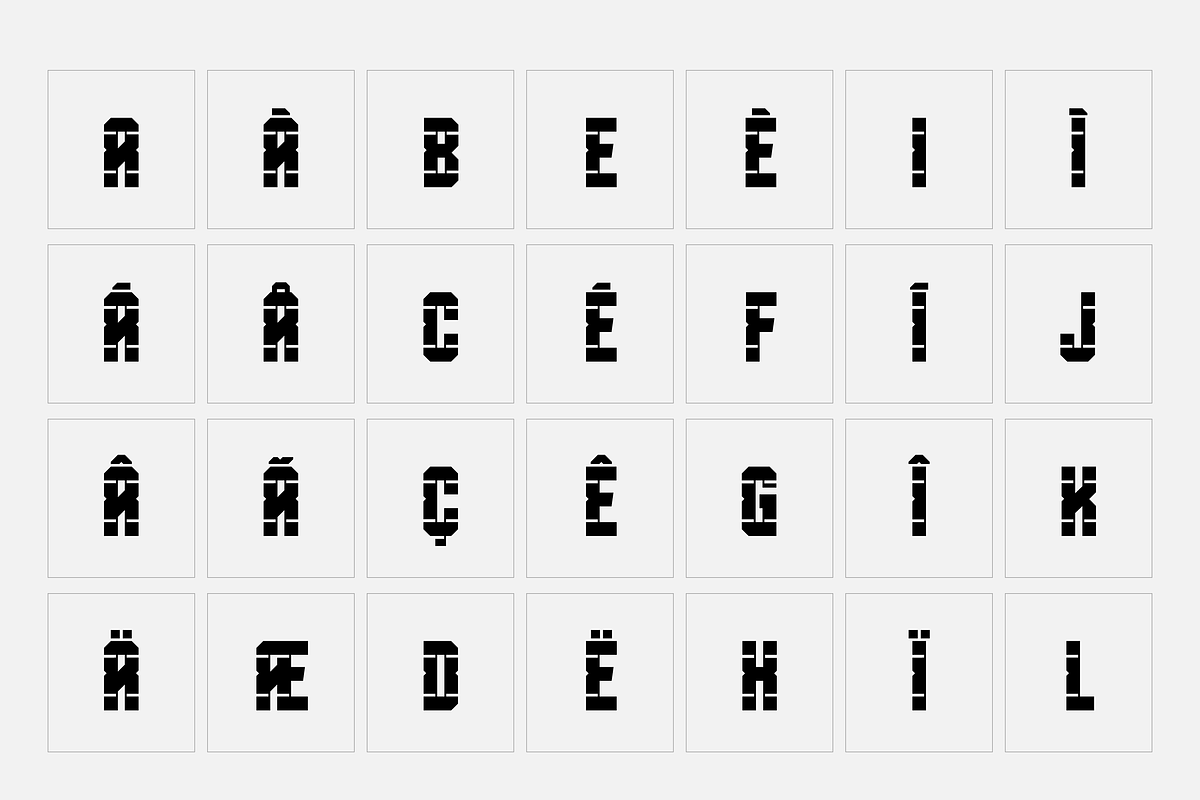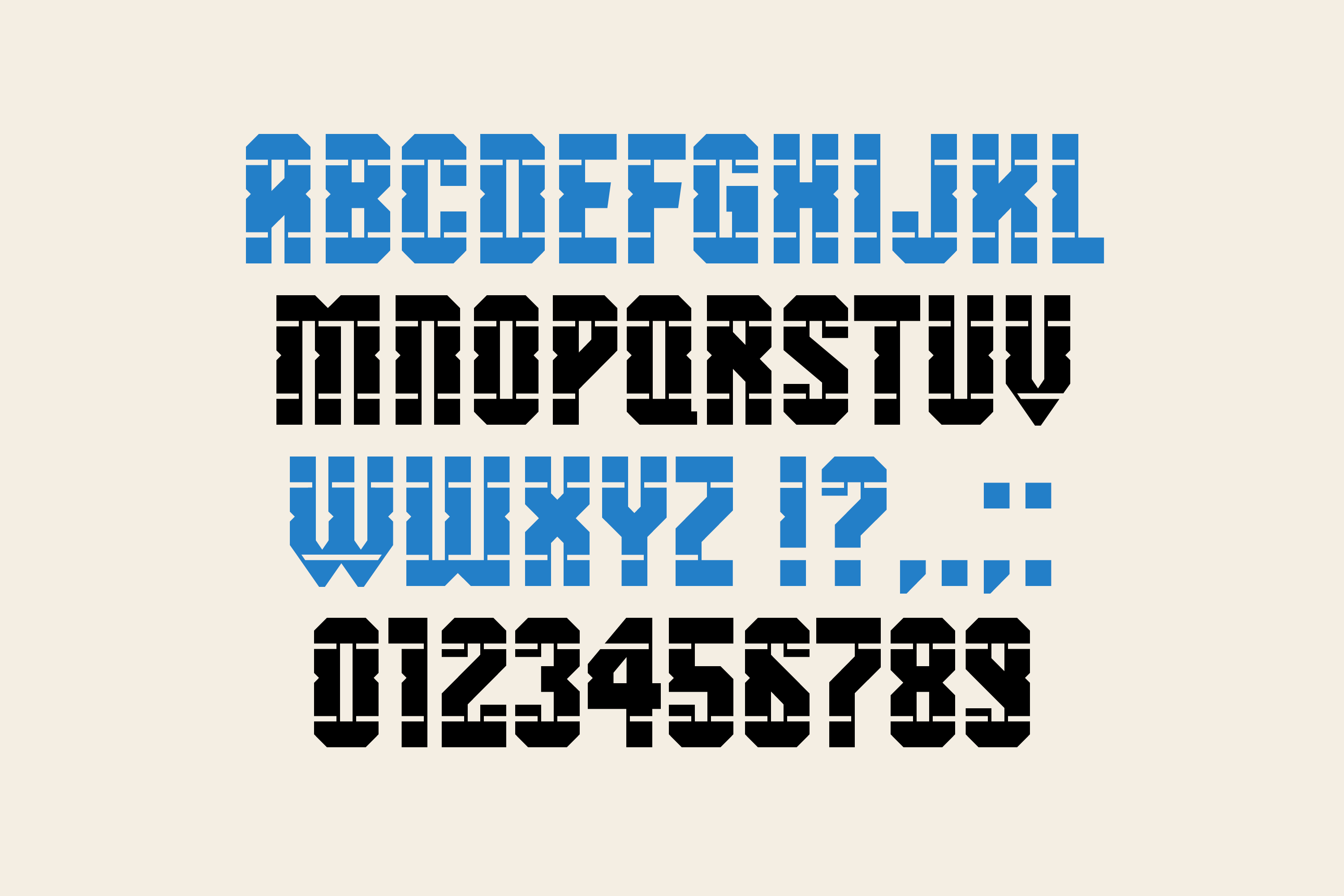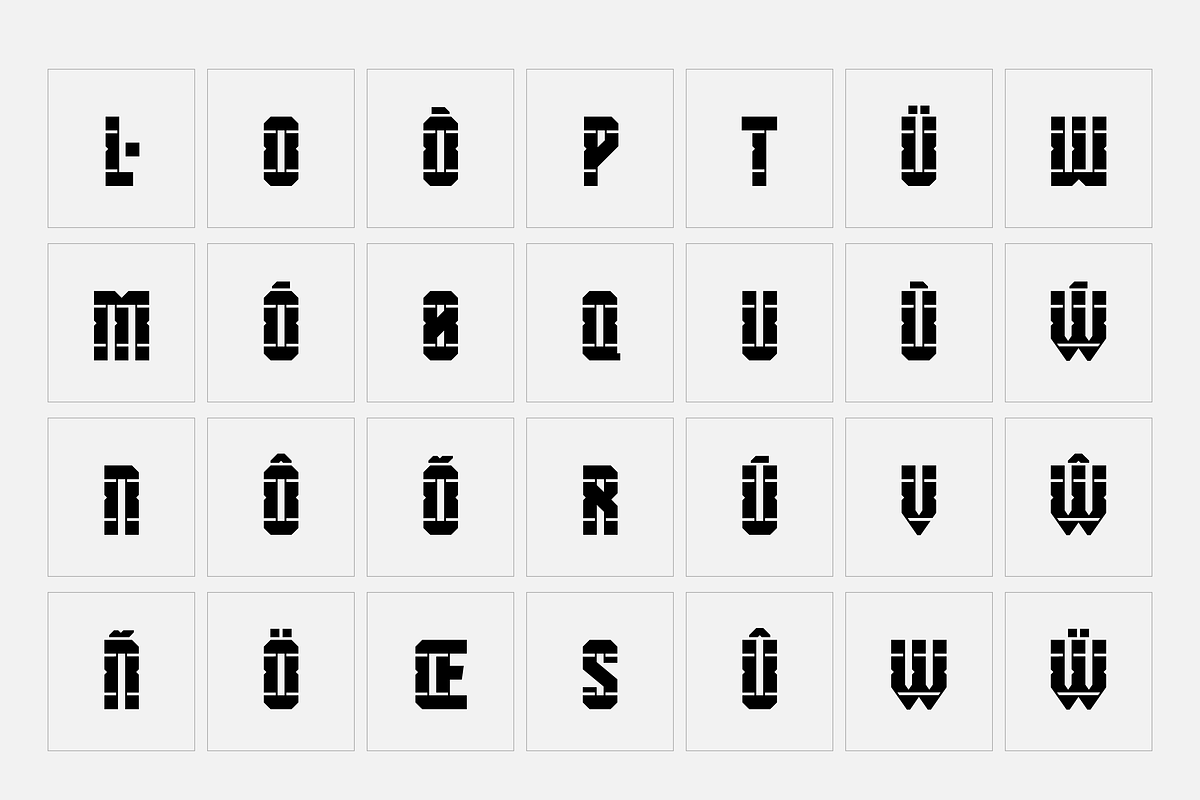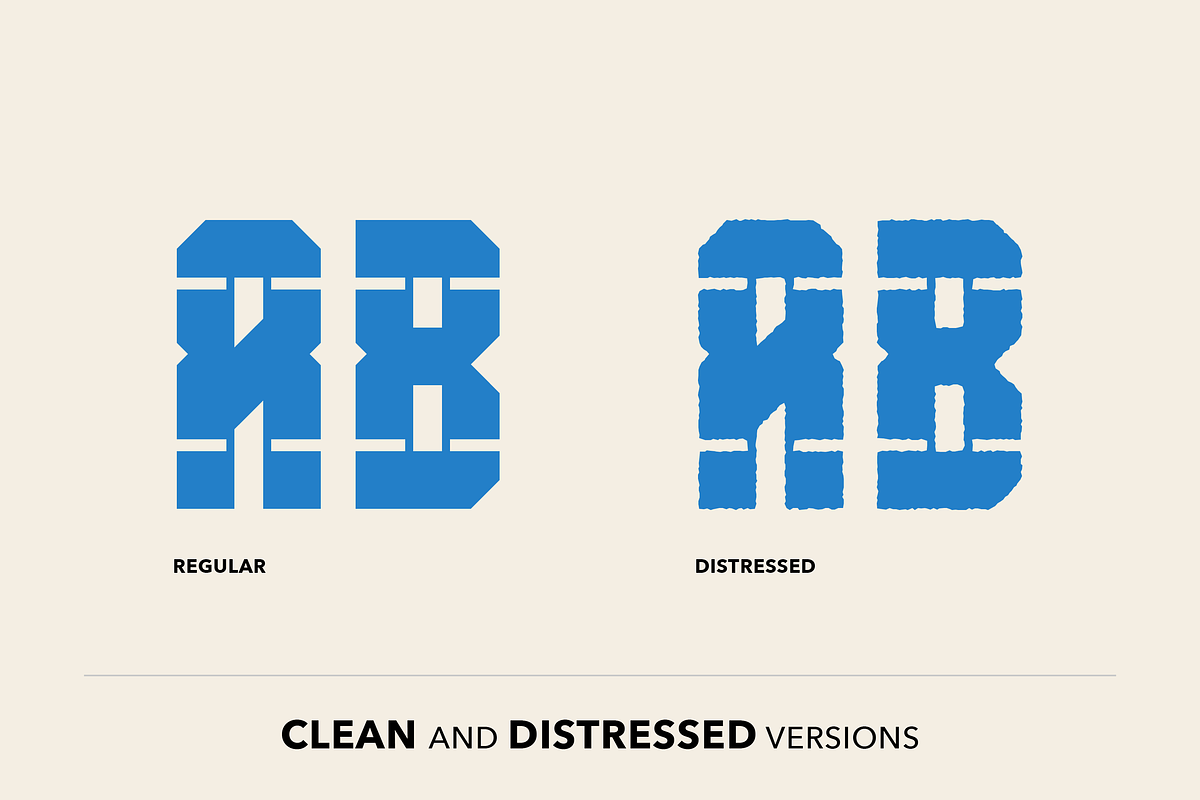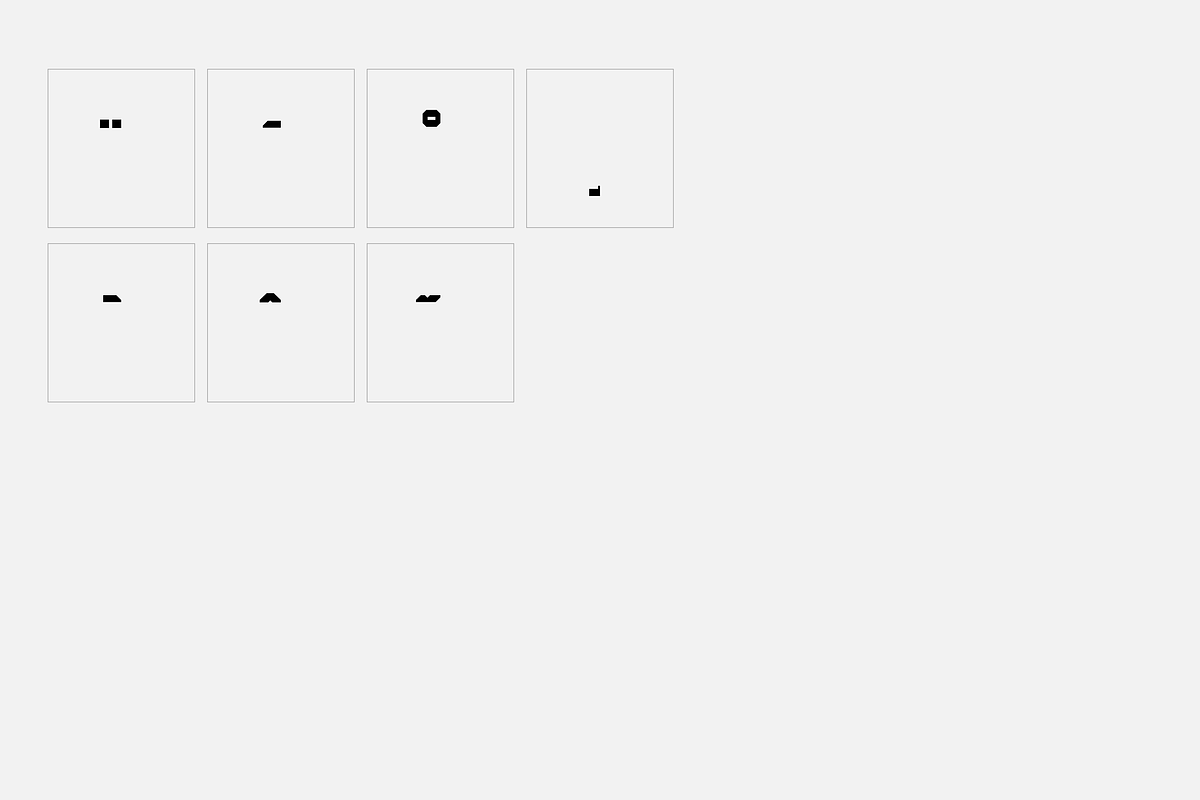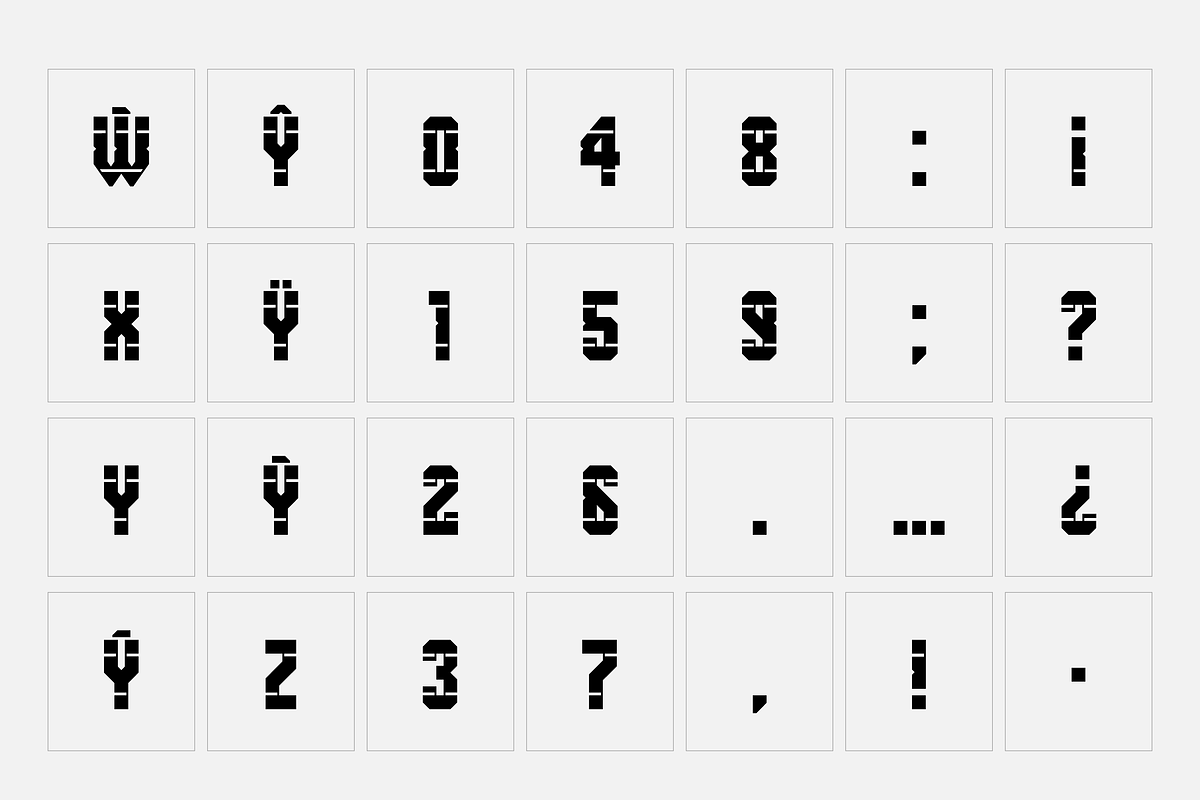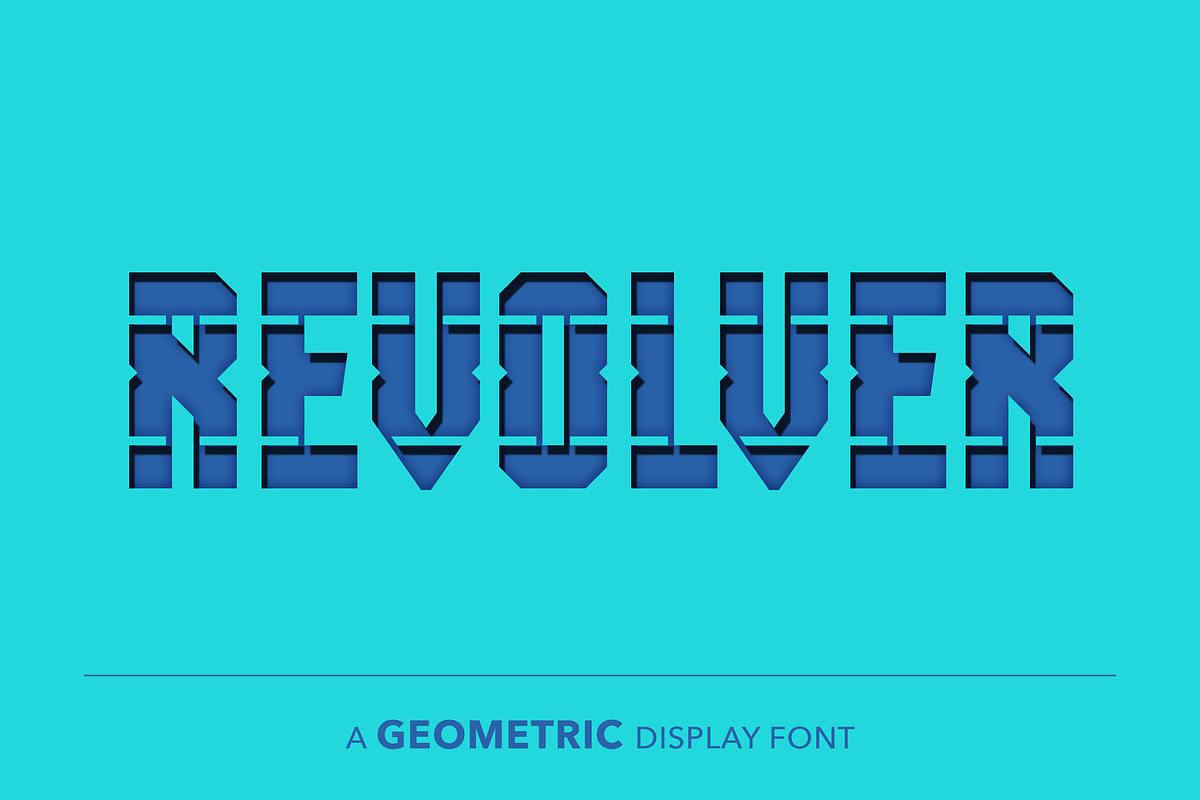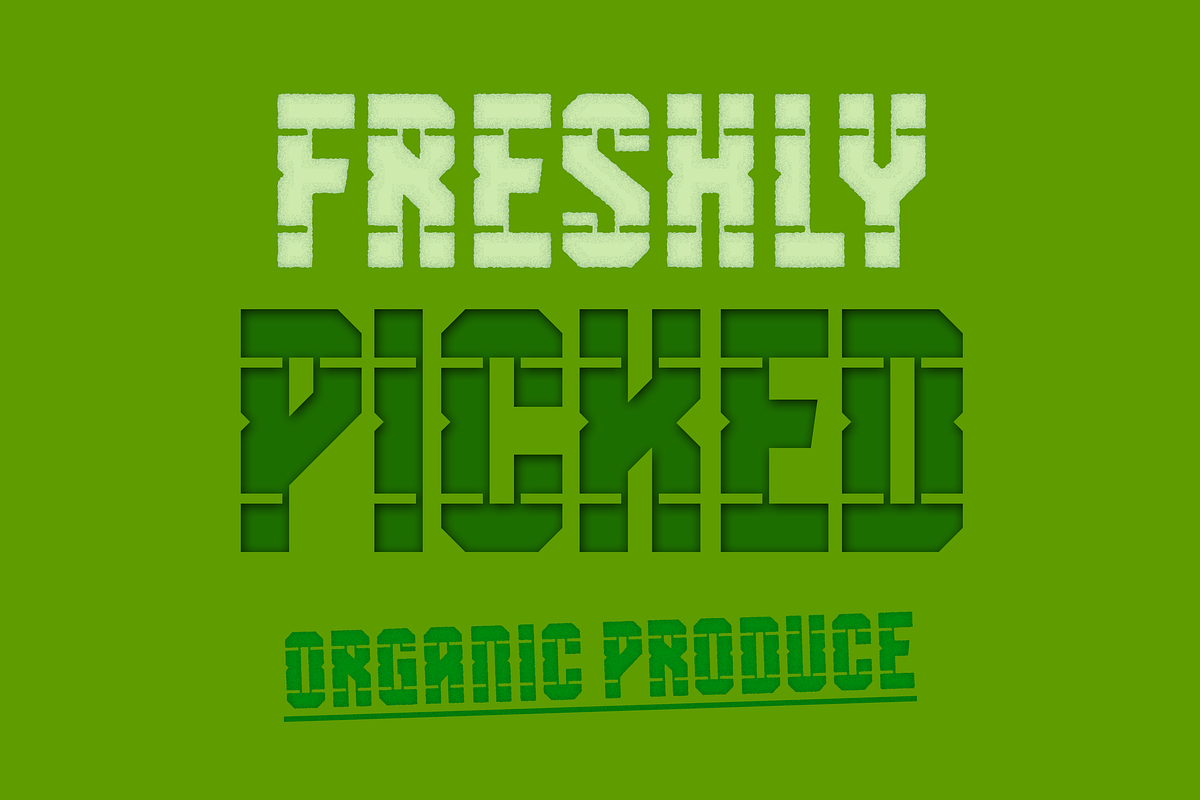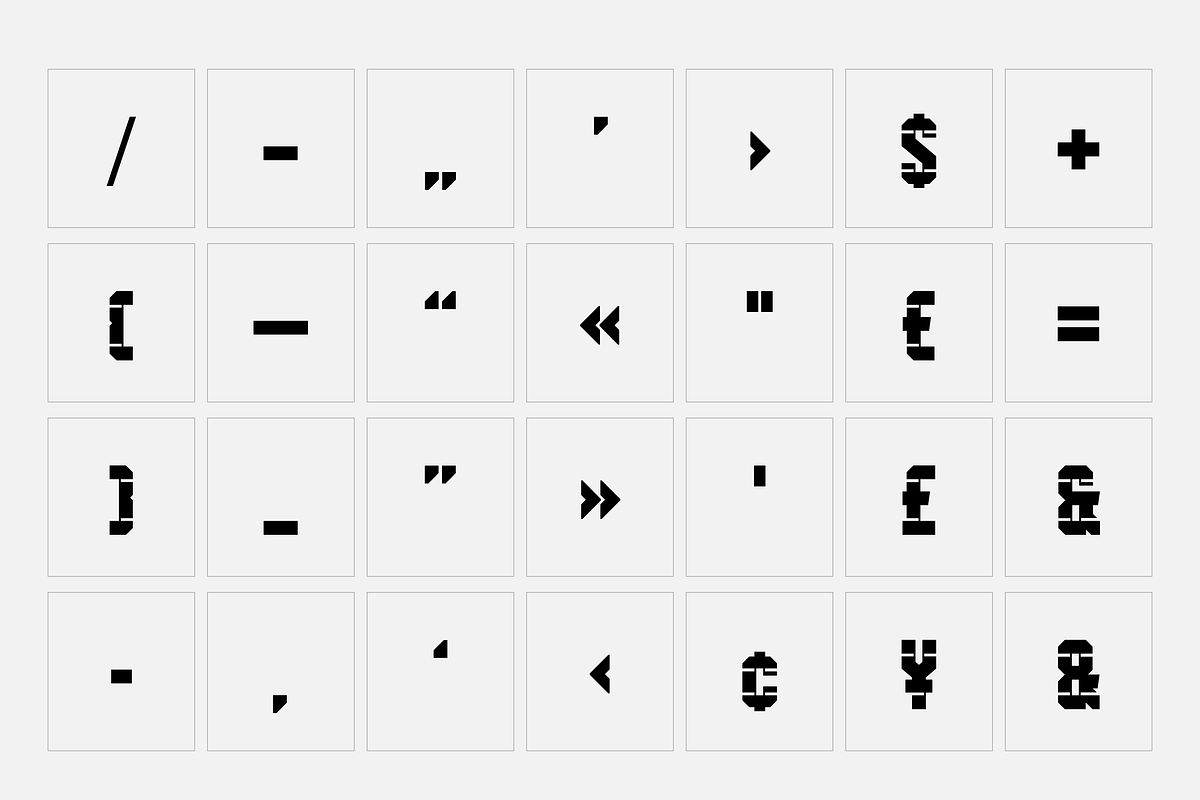
Revolver - Sports font
- Regular and Distressed versions.
- This font contains 121 glyphs.
SB Revolver is a poster sized display font inspired by papercrafts and wood type. It includes a distressed version that simulates print on a rough, absorbent paper.